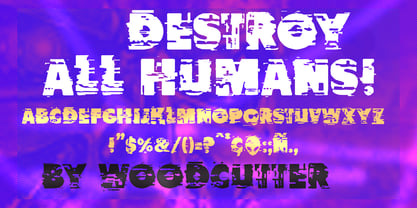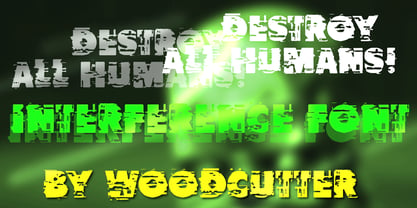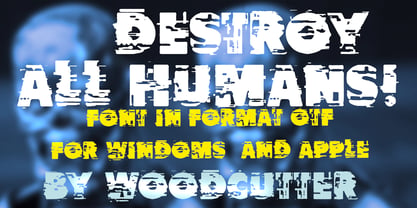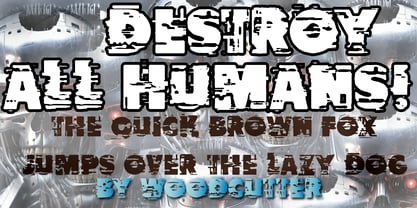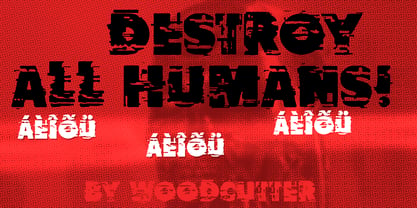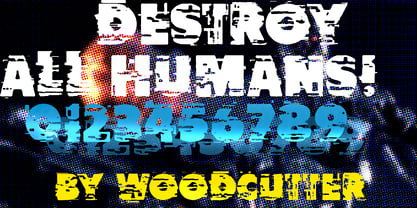
Destroy All Humans
by Woodcutter
Destroy All Humans! is a high-impact typeface designed to express the chaos of a future collapsed by a digital apocalypse. Built entirely in uppercase with full accent support, this font features a futuristic aesthetic heavily disrupted by interference, as if the signal generating it were constantly failing. The result is an unstable visual system where each character appears to break apart, vibrate, or fragment before the viewer’s eyes.
The forms of Destroy All Humans! combine geometric, tech-inspired structures with aggressive distortions: abrupt cuts, misalignments, glitches, and deformations that disrupt the continuity of the letters. This creates a persistent error-like sensation, as if the message were being transmitted from a ruined world where information can no longer be trusted.
Its aesthetic evokes damaged screens, corrupted transmissions, and visual codes degraded by a hostile environment. Despite this, it retains enough legibility to function as a striking focal point in bold, narrative-driven compositions.
Destroy All Humans! is perfect for science fiction projects, video games, film titles, electronic music, experimental design, or any concept exploring dystopia, technological collapse, and uncertain futures. It is not just a typeface, but a visual warning—a distorted message sent from the end of digital civilization.